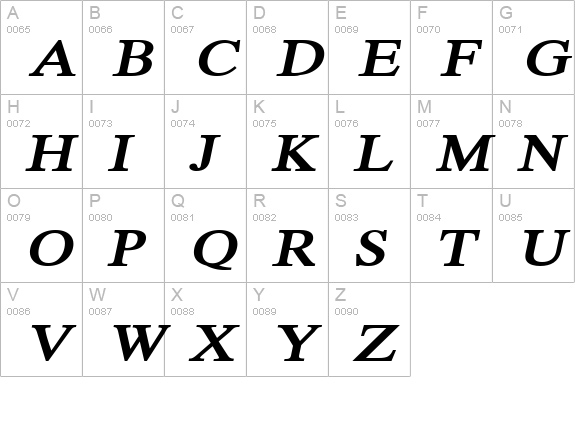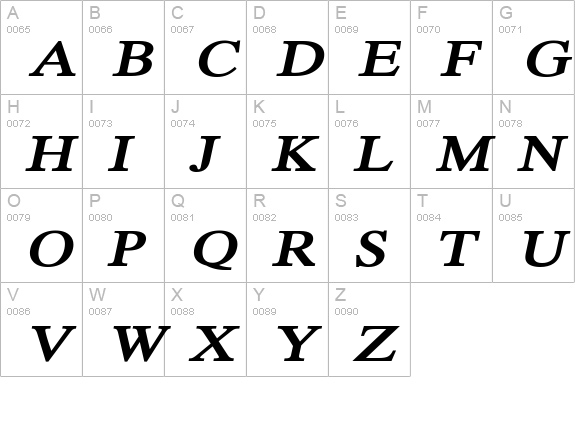
Duke Extended BoldItalic is a distinctive, extended-width variant in the Duke typeface family \xE2\x80\x94 well suited to design and typography projects.
Duke Extended BoldItalic is a striking and bold typeface that exudes elegance and sophistication. With its sleek and modern design, this font is perfect for making a statement in any project. The italicized style adds a touch of flair and creativity, making it stand out from the crowd. And the best part? Duke Extended BoldItalic is available for free download at FontsMarket.com. Whether you're working on a branding project, advertising campaign, or any other design endeavor, this font is sure to elevate your work to the next level. Don't miss out on the opportunity to add this versatile and eye-catching typeface to your collection today!